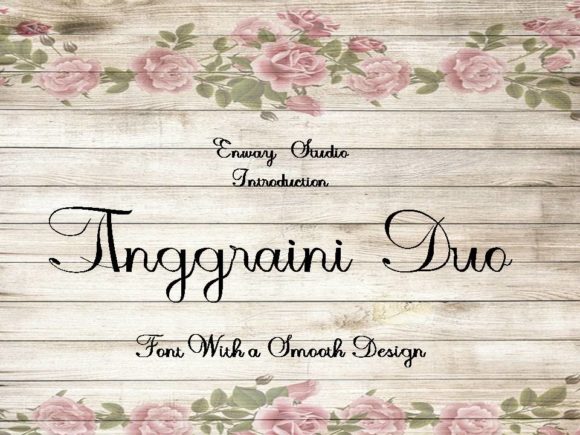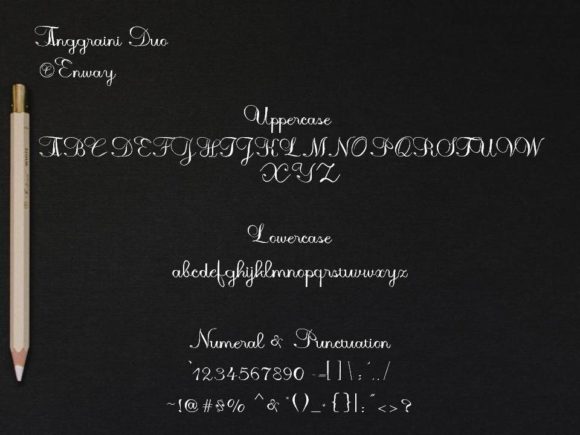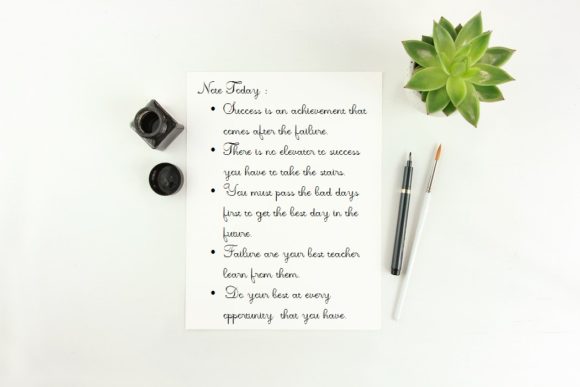
HomePersonal Use FreeAnggraini Personal Use Free Anggraini FacebookTwitterPinterestWhatsApp 1 of 3 About Anggraini Font Anggraini is a smooth and modern calligraphic font duo with a contemporary twist. It will effortlessly update any design project! DOWNLOAD NOW People also explored Schaberstein Coral Waves Font Alssential Font Savannah Font Wildflowers in Spring Font Blanchord Font Rockhand Font Christmas Cake Font Heather Peach Unisex T-Shirt Mockup Photo 190 0 TagsAnggraini Font Previous articleMellgathaNext articleEinstaint LEAVE A REPLY Cancel reply Comment: Please enter your comment! Name:* Please enter your name here Email:* You have entered an incorrect email address! Please enter your email address here Website: Save my name, email, and website in this browser for the next time I comment. Personal Use Free A New Nattyla Personal Use Free Read more about this font Fontmageddon Personal Use Free Read more about this font Pouline Personal Use Free Read more about this font Quick Count Personal Use Free Read more about this font BLOG Best Fonts for T-Shirt Design – Top 2025 Picks In 2025, t-shirt design has become more than just fashion—it's a form of self-expression. Whether you're... Free Fonts Risk: Why Free Fonts Can Be Dangerous for Designers Elegant Wedding Invitation Fonts – Handwritten & Script Fonts Where to Buy American Fonts Online in 2024